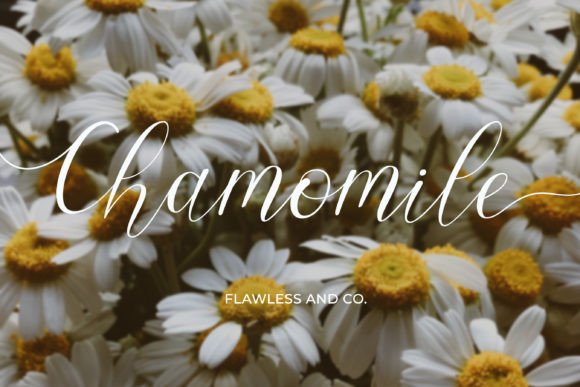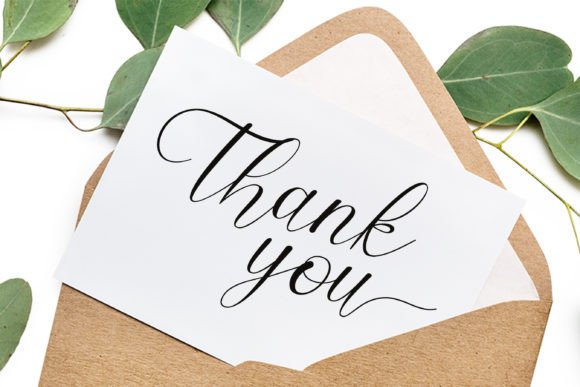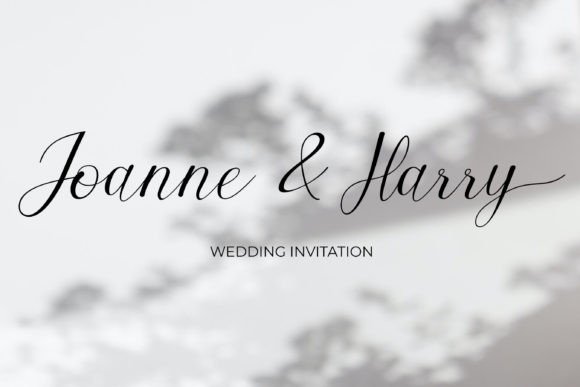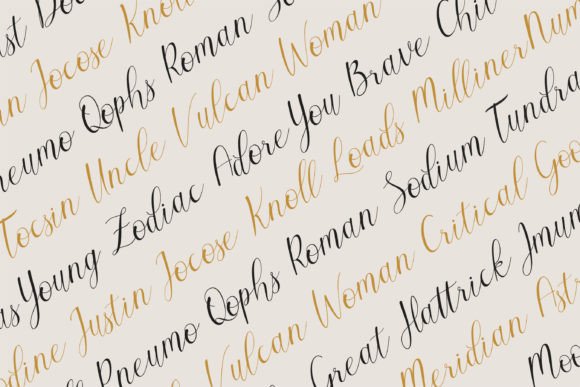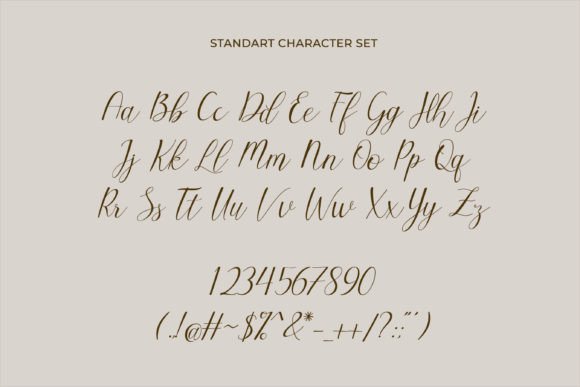
About Chamomile
Chamomile is a modern font that brings romance to the center of attention thanks to the harmonious calligraphy writing technique. This font was specially created for those who need a sens of purity in their designs. This font is PUA encoded which means you can access all glyphs and swashes effortlessly!